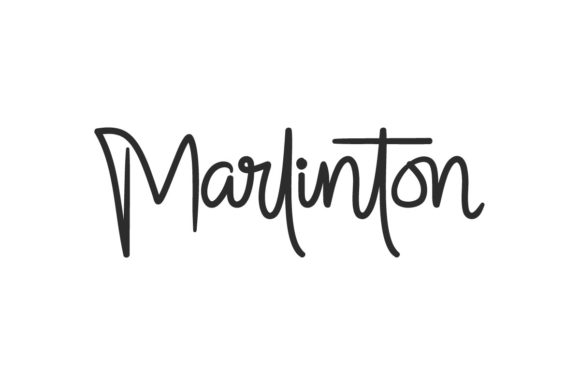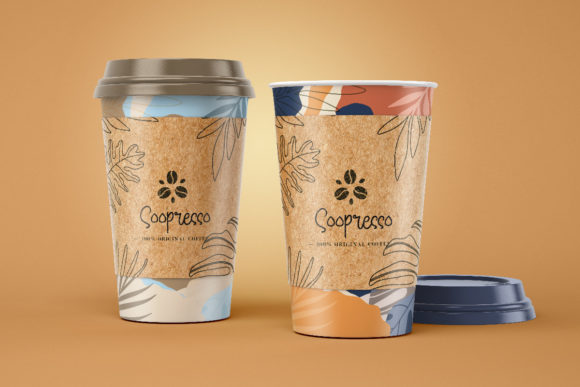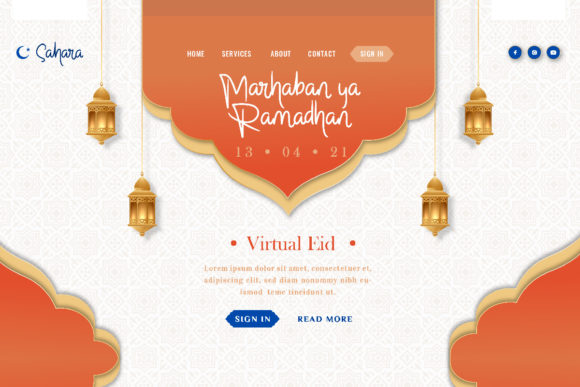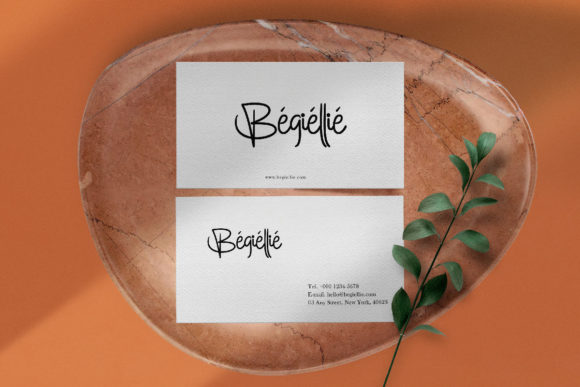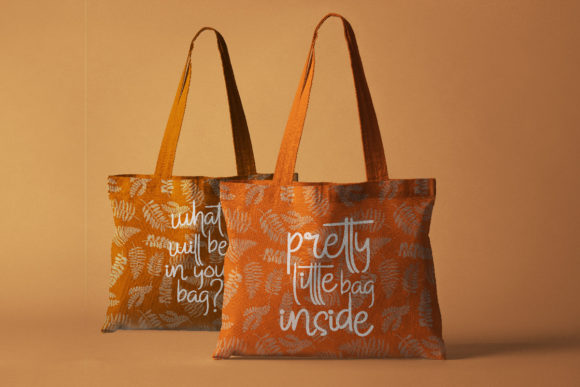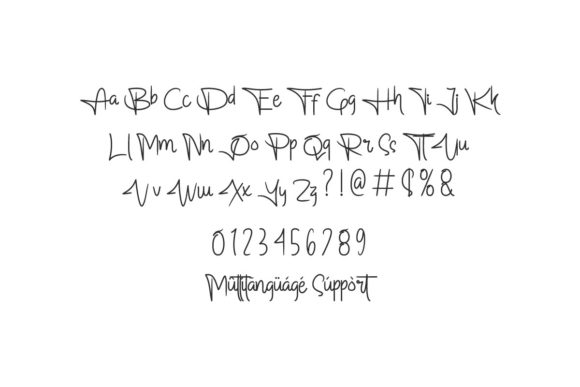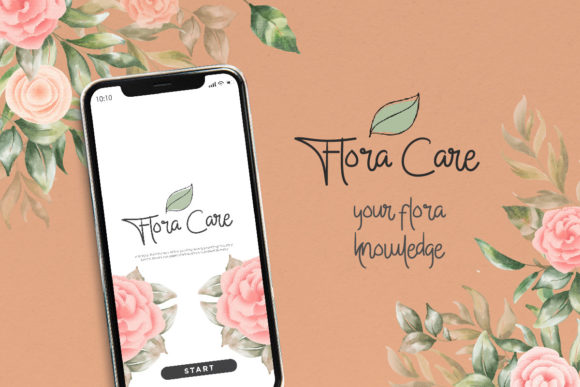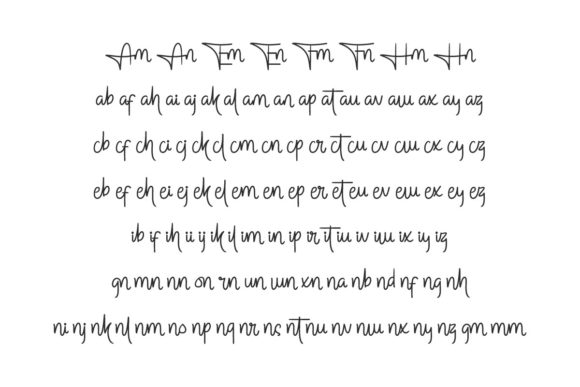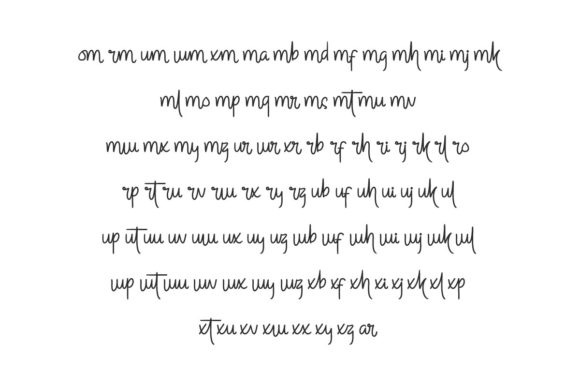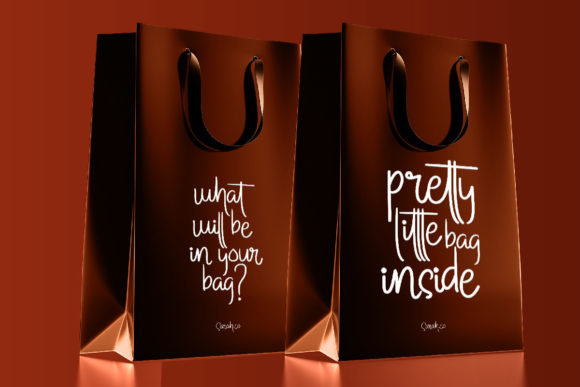
Marlinton Font
About Marlinton Font
Marlinton is a stylish script font carefully created with a touch of elegance. This font is PUA encoded which means you can access all of the glyphs and swashes with ease!